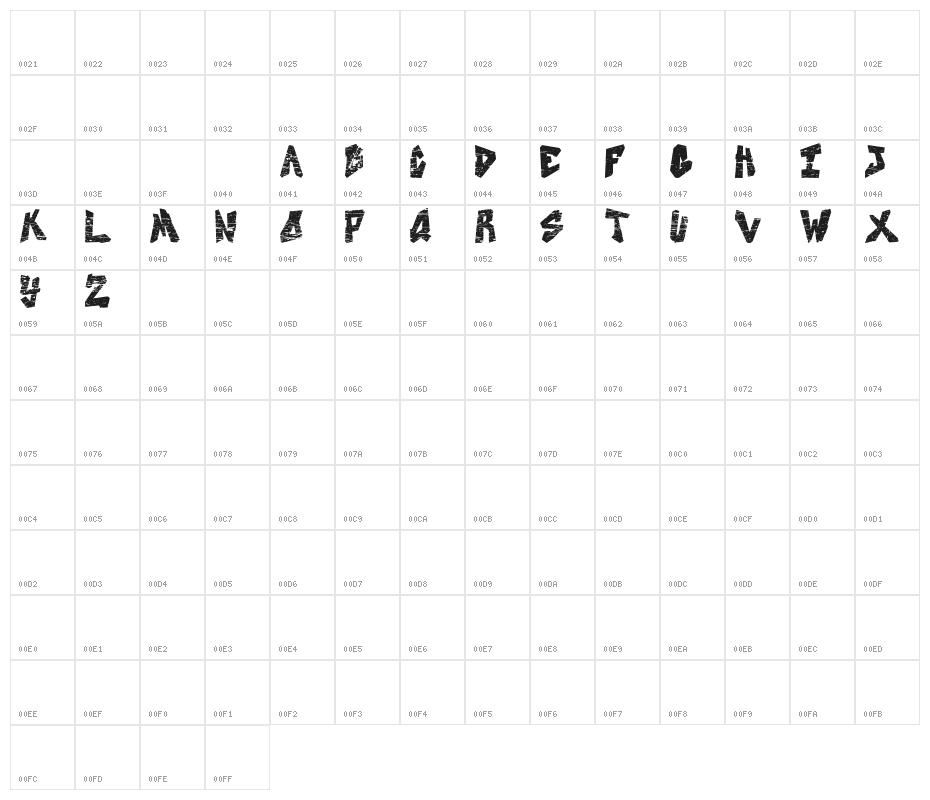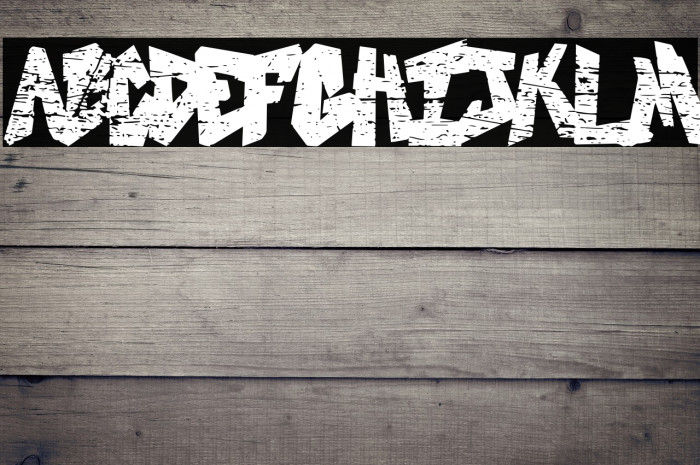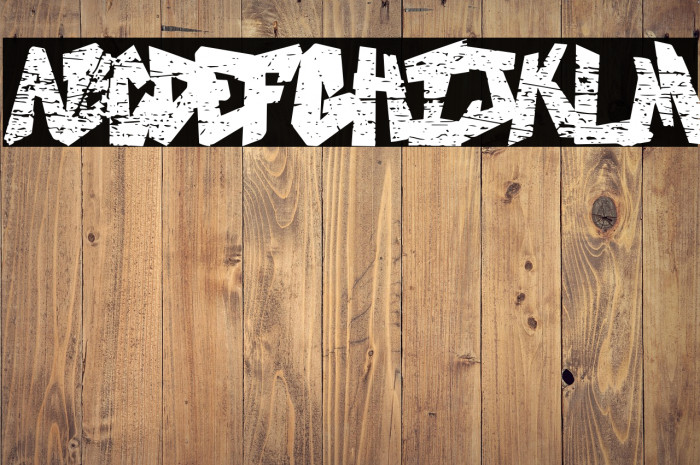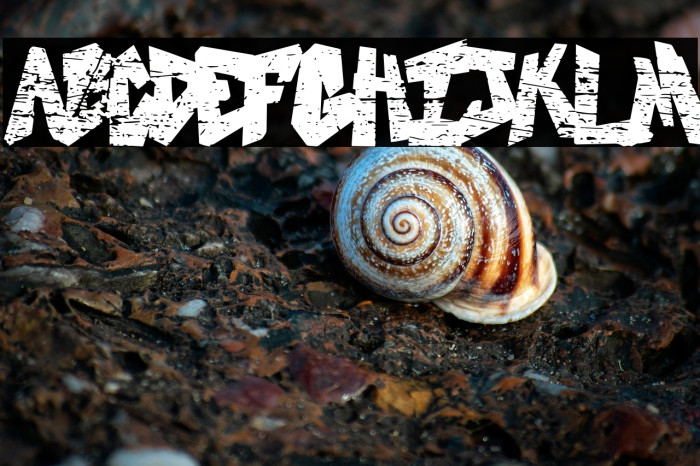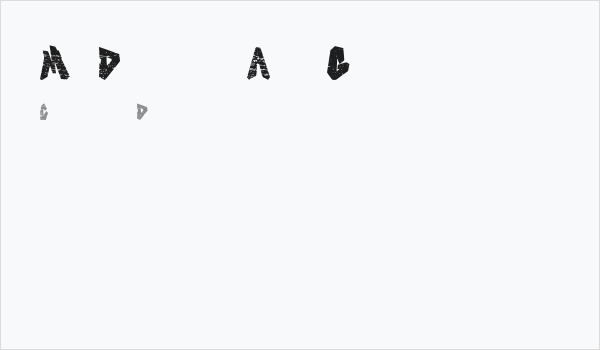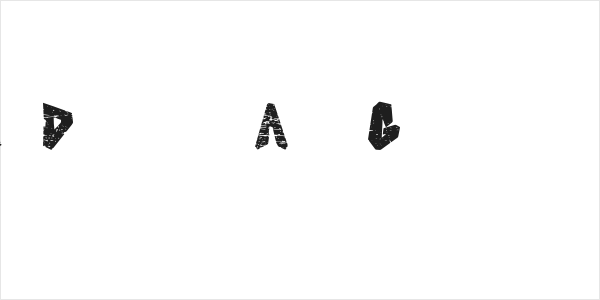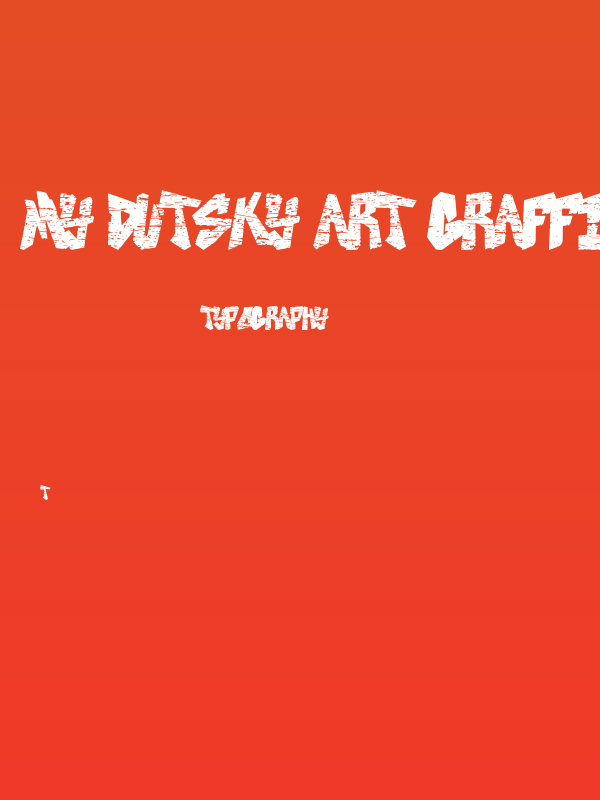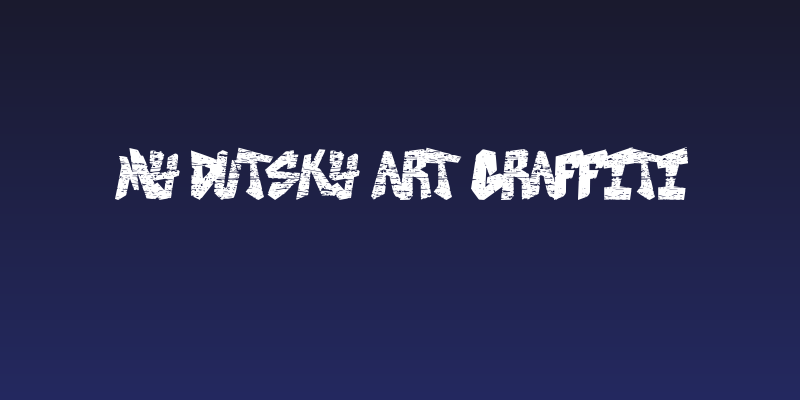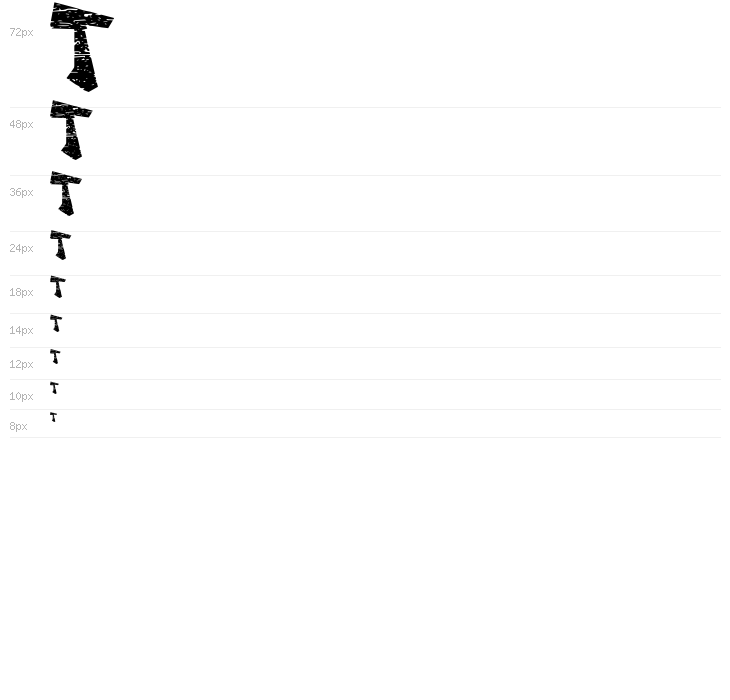
My Dutsky Art Graffiti Font
My Dutsky Art Graffiti Description
This font embodies the raw, energetic essence of street art, with bold, jagged edges and a distressed texture that mimics the look of spray paint on a gritty urban wall. Each character is uniquely styled, giving the impression of spontaneous creativity and rebellious spirit. The uppercase letters are dominant, with a dynamic, angular form that captures attention. The texture within the letters adds depth and a sense of movement, making it ideal for projects that require a bold, artistic statement. The font's chaotic yet structured appearance makes it perfect for designs that aim to convey a sense of urban culture and edgy aesthetics.
| Overall Style | Urban, Edgy, Artistic |
| Proposed Projects | Ideal for street art posters, urban-themed branding, music album covers, and edgy fashion labels. |